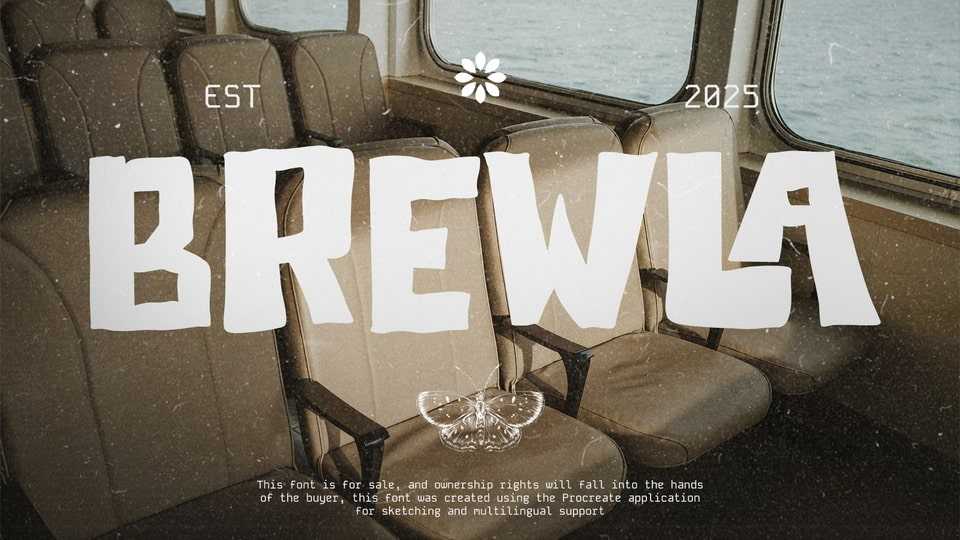
Download PTG Brewla font, a bold and expressive display typeface inspired by the warmth of a coffee shop. With bold, organic, and characterful letterforms, this font evokes a warm, freshly brewed cup of coffee.
Designer: Portograph Studio